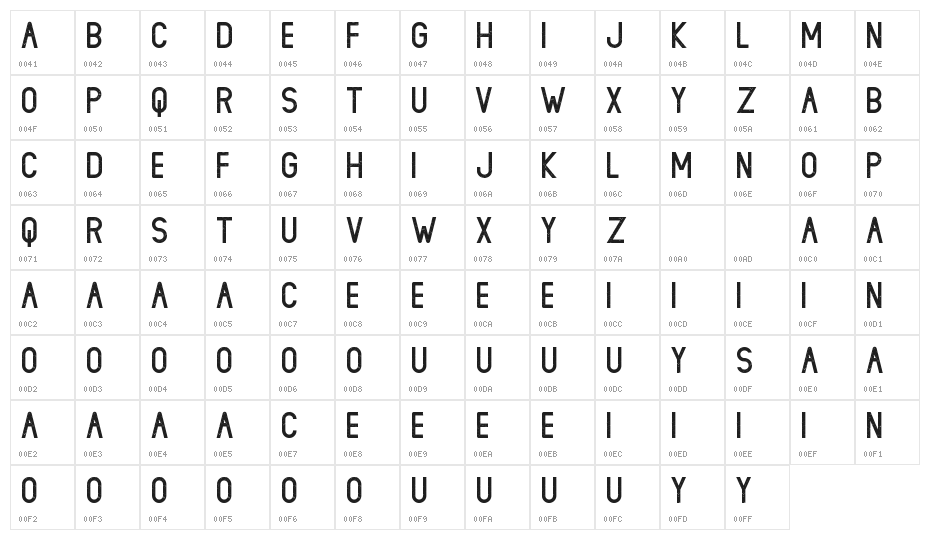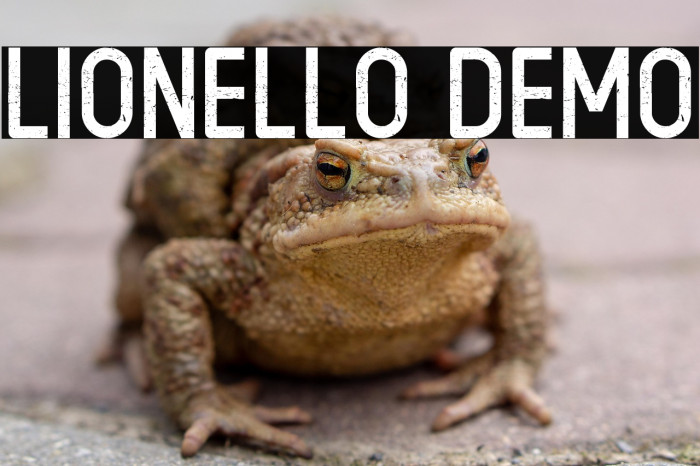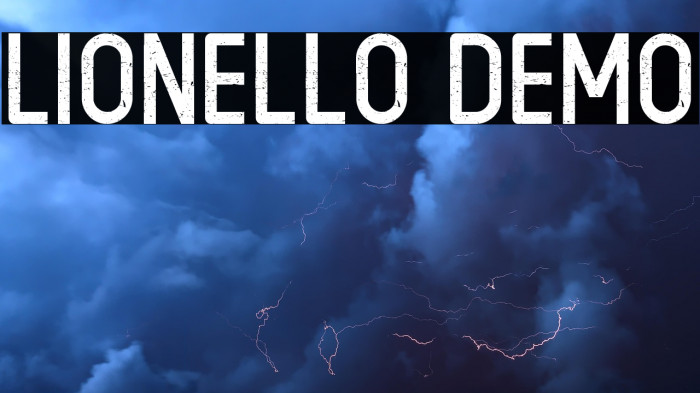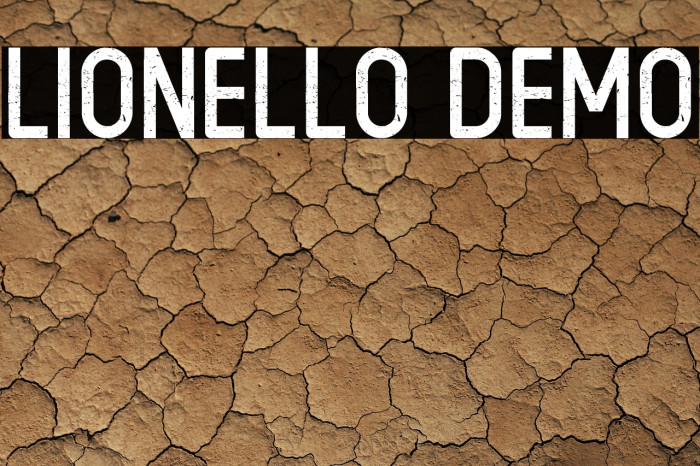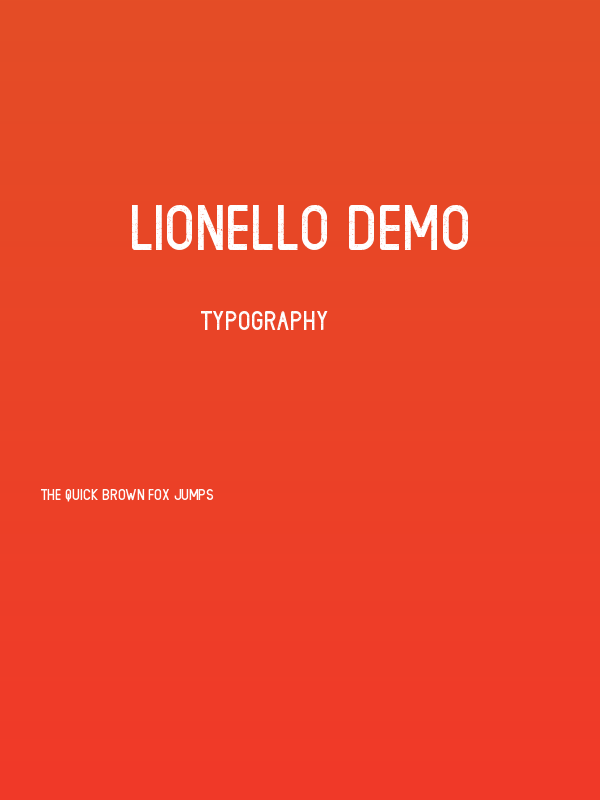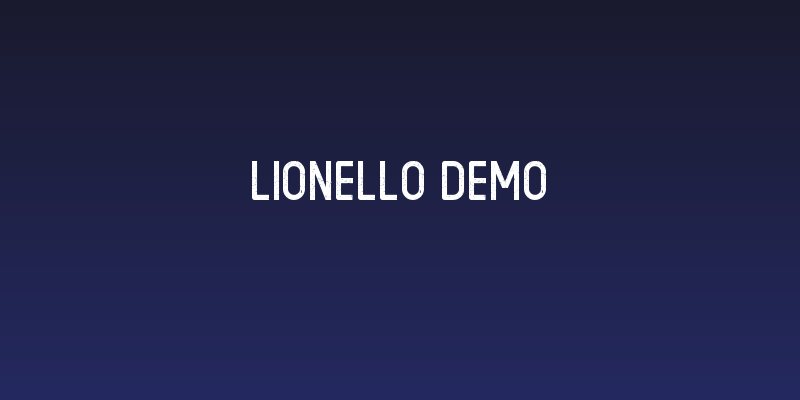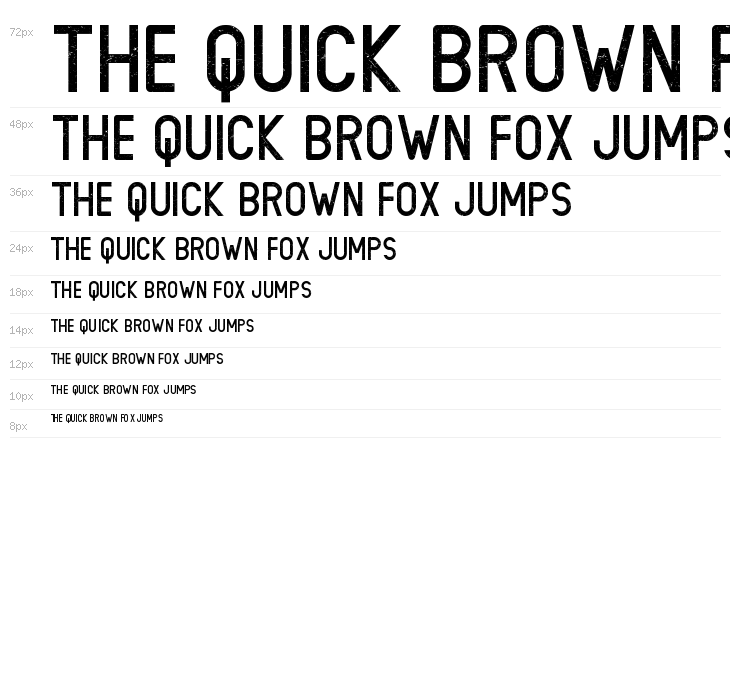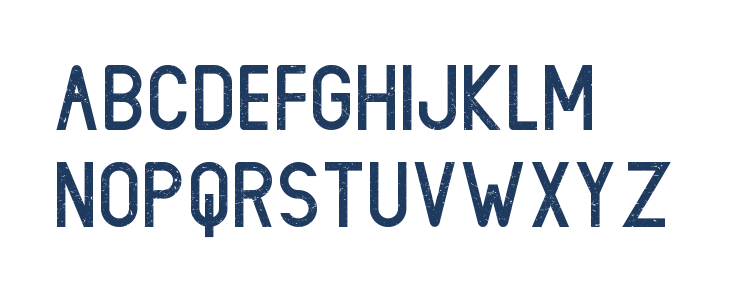
LIONELLO DEMO Font
LIONELLO DEMO Description
This font features a bold, industrial style with a distressed texture that gives it a rugged, vintage appearance. The uppercase letters are uniformly designed with a strong geometric structure, while the distressed effect adds character and a sense of history. The font's boldness makes it stand out, and the texture suggests a tactile, worn-in feel, reminiscent of old machinery or vintage signage. Its clean lines and consistent weight make it highly legible, even with the added texture. The absence of lowercase letters and numerals suggests a focus on impactful, large-scale use.